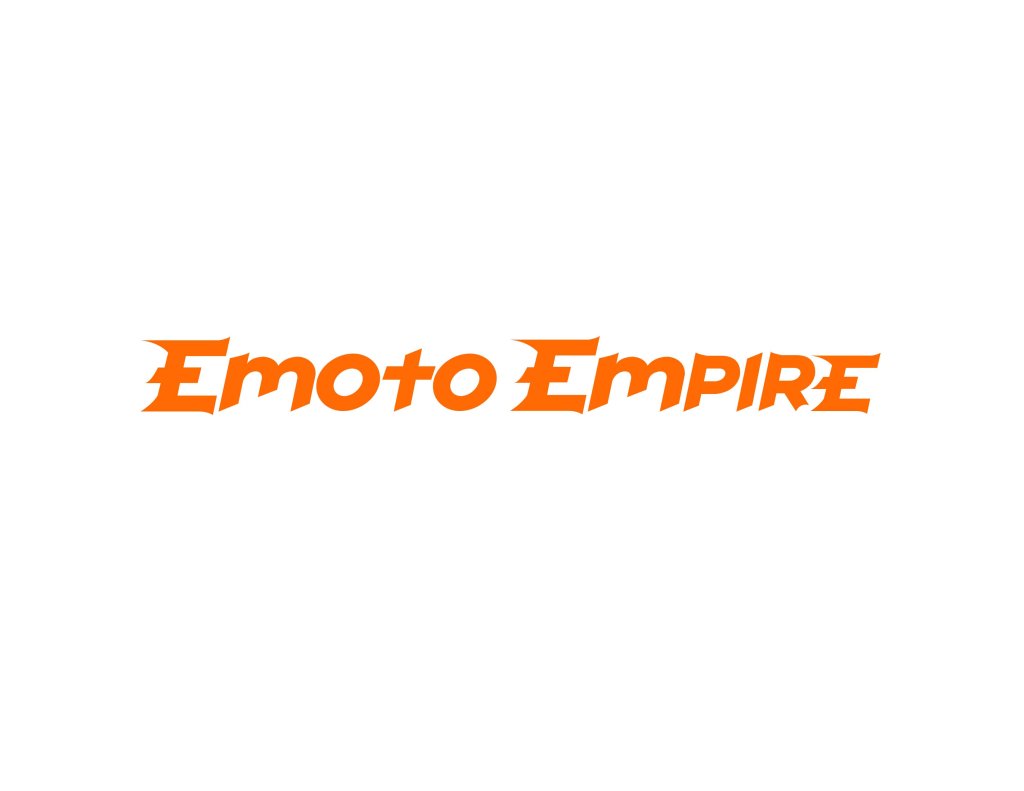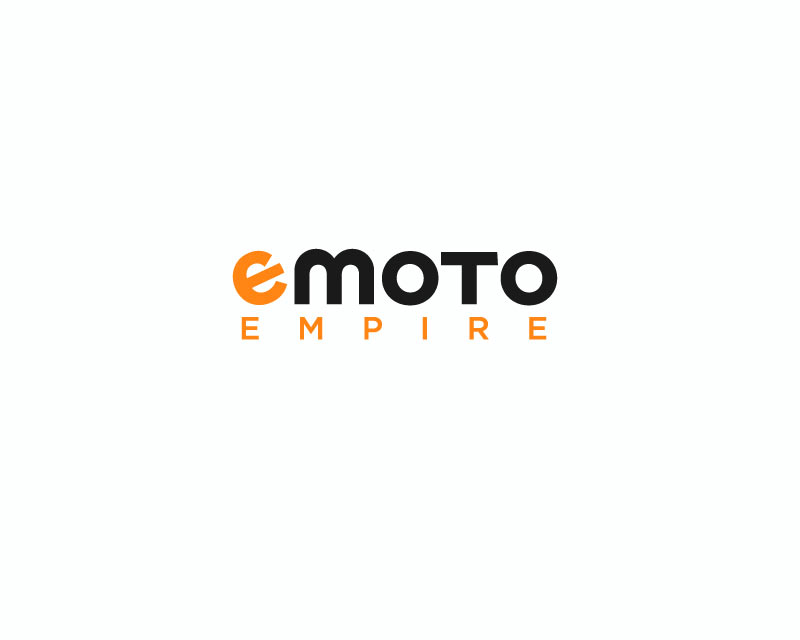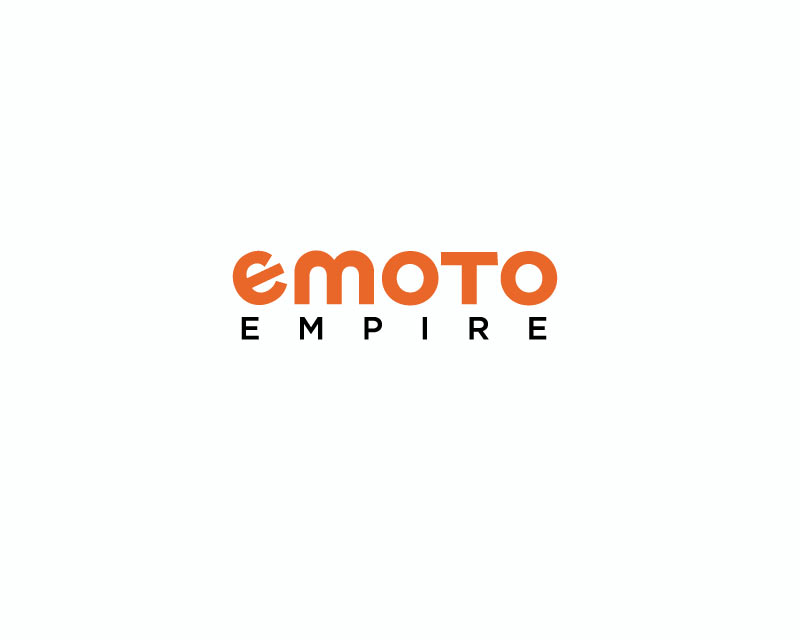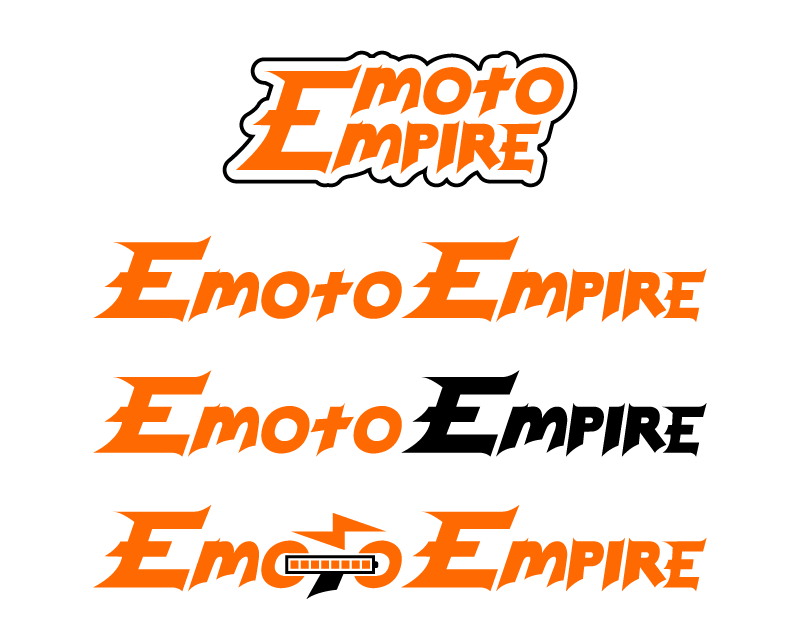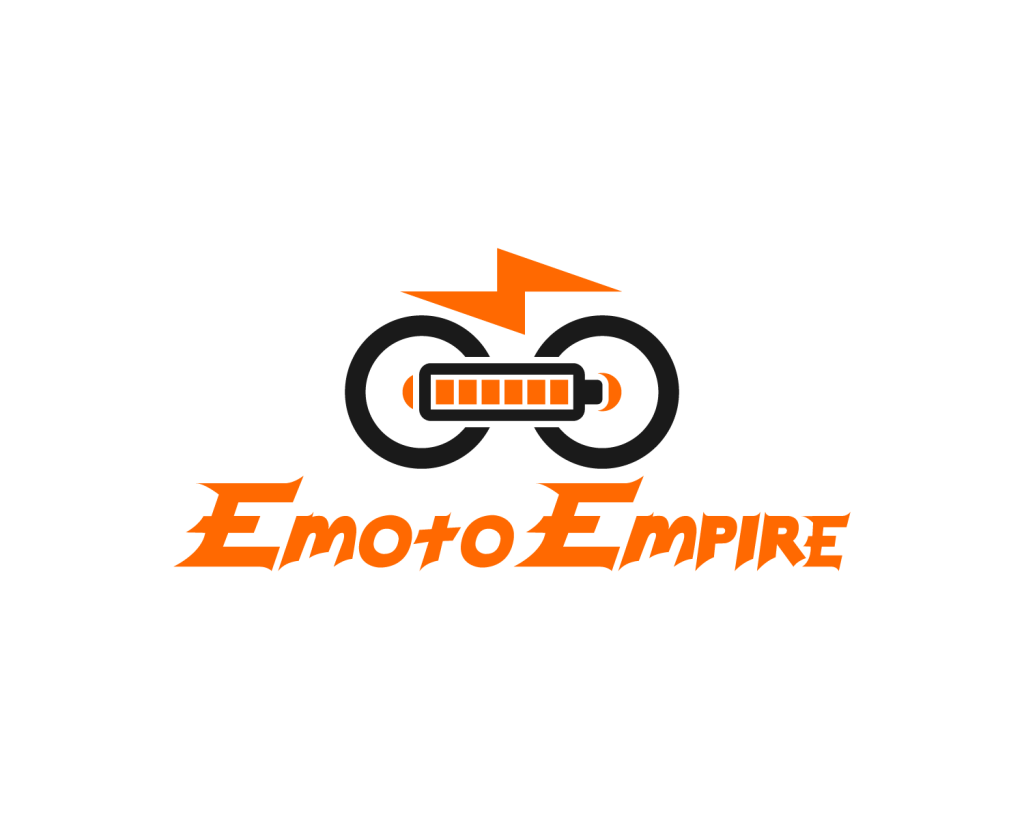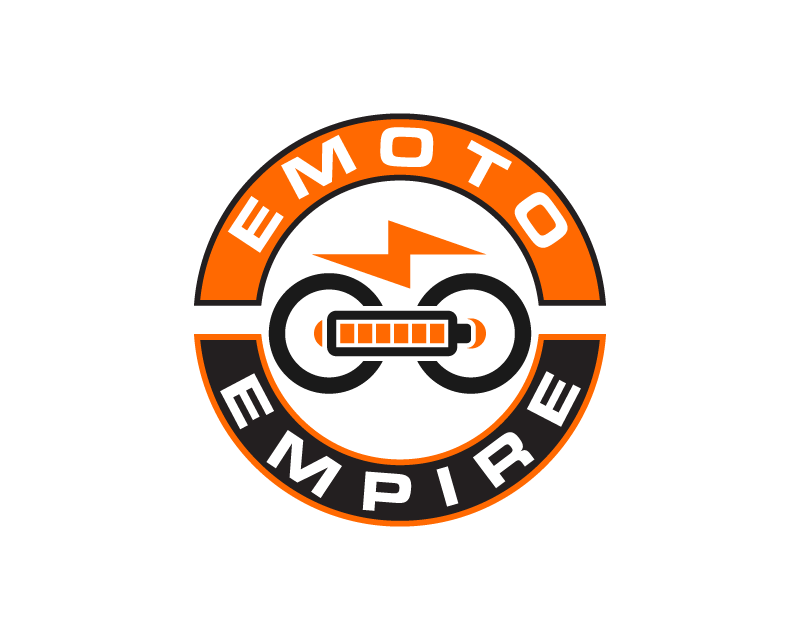
I am not sure of the best way to do this but could someone make a logo based on this sketch but where all the letters are consistent like if I used a proper font? Or create a font to match? Something in orange FF6901 like I have on this site I am creating: https://emotoempire.com/
Its an electric bicycle site.
Let me know if you have any suggestions, wasn't sure how to go about this one :)